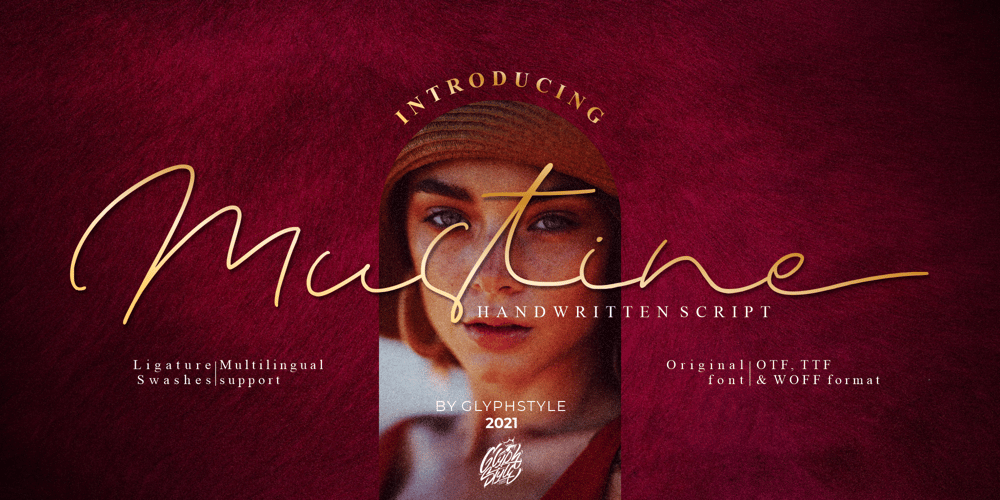
Mustine
Mustine font
Mustine Font Family was designed by Dimas Ardhi and published by GlyphStyle. Mustine contains 1 styles and family package options. Mustine is a natural handwritten font, a beautiful writing font with natural line movement that makes it beautiful and majestic. This handwritten font is perfect for covers, watermarks, branding, names, business cards, products, logos, etc.– Font feature Uppercase, Lowercase, Numerals & Punctuations, Ligature, Swashes, Multilanguage